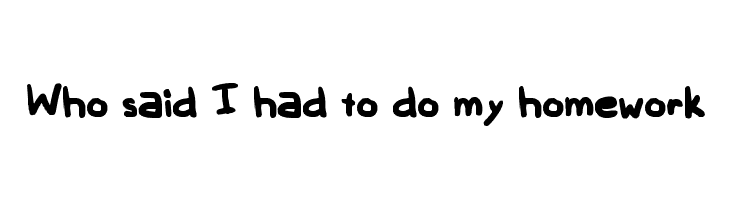
( ADavis )
A playful, handwritten font with dynamic strokes and a casual feel.
A playful, whimsical handwritten font with irregular, flowing letterforms.
A playful, bubbly font with exaggerated curves and a cartoonish style.
A bold, graffiti-inspired font with dynamic and angular strokes.
A bold, dynamic font with a slight forward slant and modern appeal.
A playful, bold font with rounded, bubbly characters ideal for creative projects.
A bold, playful font with a chunky, hand-drawn style.